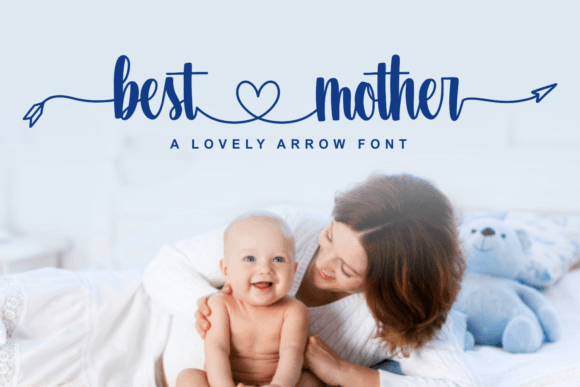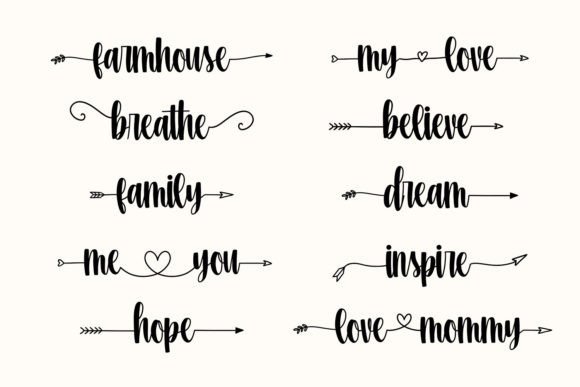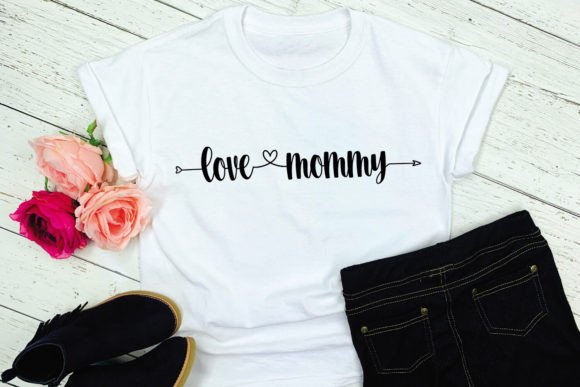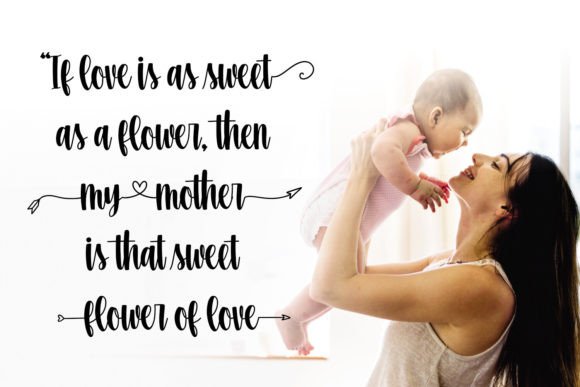
Best Mother Font
About the Best Mother Font
Explore the possibilities with Best Mother Font, a font that offers both beauty and functionality. Best Mother is a beautiful script font with love-themed arrow swashes.
It is one of the modern calligraphy script fonts that comes with very beautiful character changes. Best Mother feels incredibly elegant and flowing. It looks stunning on wedding invitations, thank you cards, quotes, greeting cards, logos, business cards and every other design which needs a handwritten touch. It features a varying baseline, smooth lines, gorgeous glyphs and stunning alternates.
Best Mother’s elegant and flowing style makes it ideal for projects requiring a touch of handwritten sophistication. It excels in applications such as wedding stationery, logos for boutique businesses, and short, impactful quotes on social media. However, its highly decorative nature and varying baseline make it unsuitable for body text or lengthy paragraphs, and its ornate style would likely clash with the functionality requirements of UI design.
Pairing Best Mother effectively requires consideration of its romantic personality. A clean sans-serif like Montserrat or a geometric sans-serif such as Futura would provide a strong contrast and enhance readability when used for supporting text. For a more cohesive, romantic feel, consider pairing it with a delicate serif like Playfair Display.
The overall personality of Best Mother is undeniably romantic and elegant, conveying a sense of refined charm and timeless beauty. This makes it a perfect choice for brands and projects that wish to project a sophisticated and heartfelt image.
Best Mother Font Usage Examples
Best Mother Font Example